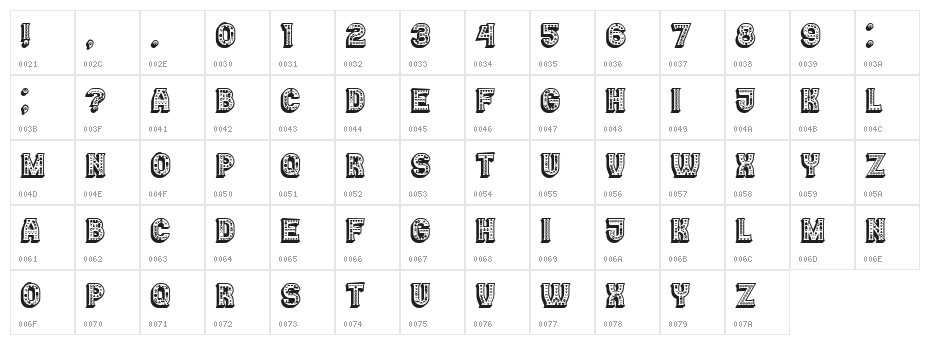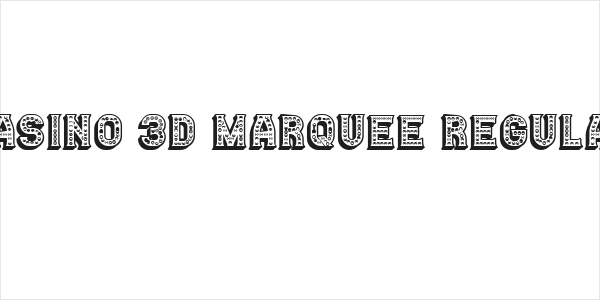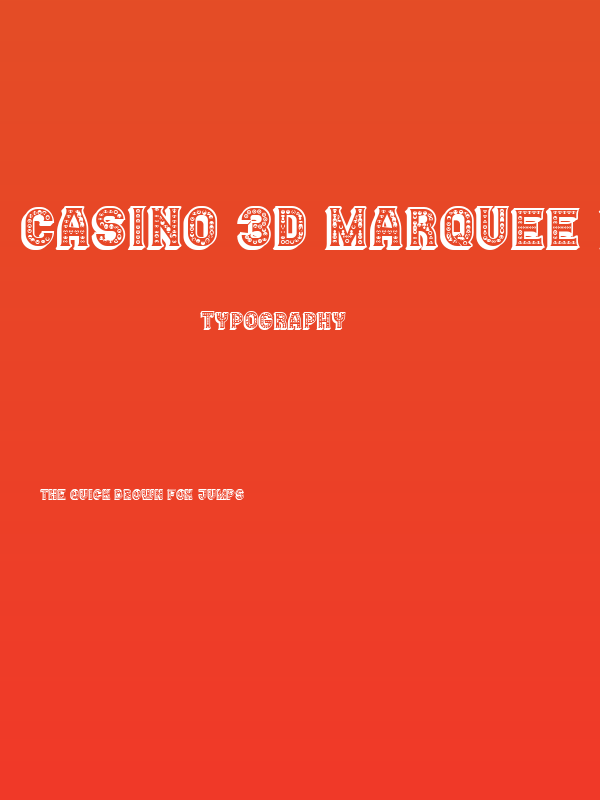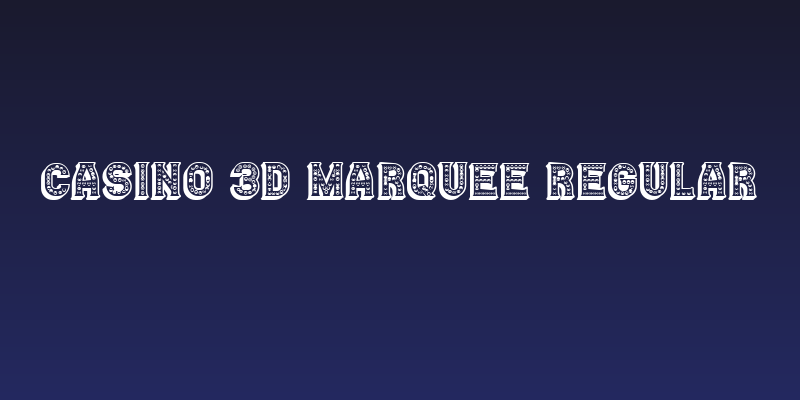
Casino 3D Marquee Regular Font
Casino 3D Marquee Regular Description
This font features a bold, three-dimensional marquee style reminiscent of classic casino signage. Each character is adorned with circular bulb-like embellishments, giving it a lively and eye-catching appearance. The letters are uppercase and have a strong, structured form with a shadow effect that enhances the 3D illusion. The numbers and special characters maintain the same decorative style, ensuring consistency across all elements. This font is perfect for projects that require a vintage, theatrical, or entertainment-themed aesthetic.
| Proposed Projects | Ideal for casino-themed designs, theater posters, vintage advertisements, and event invitations. |